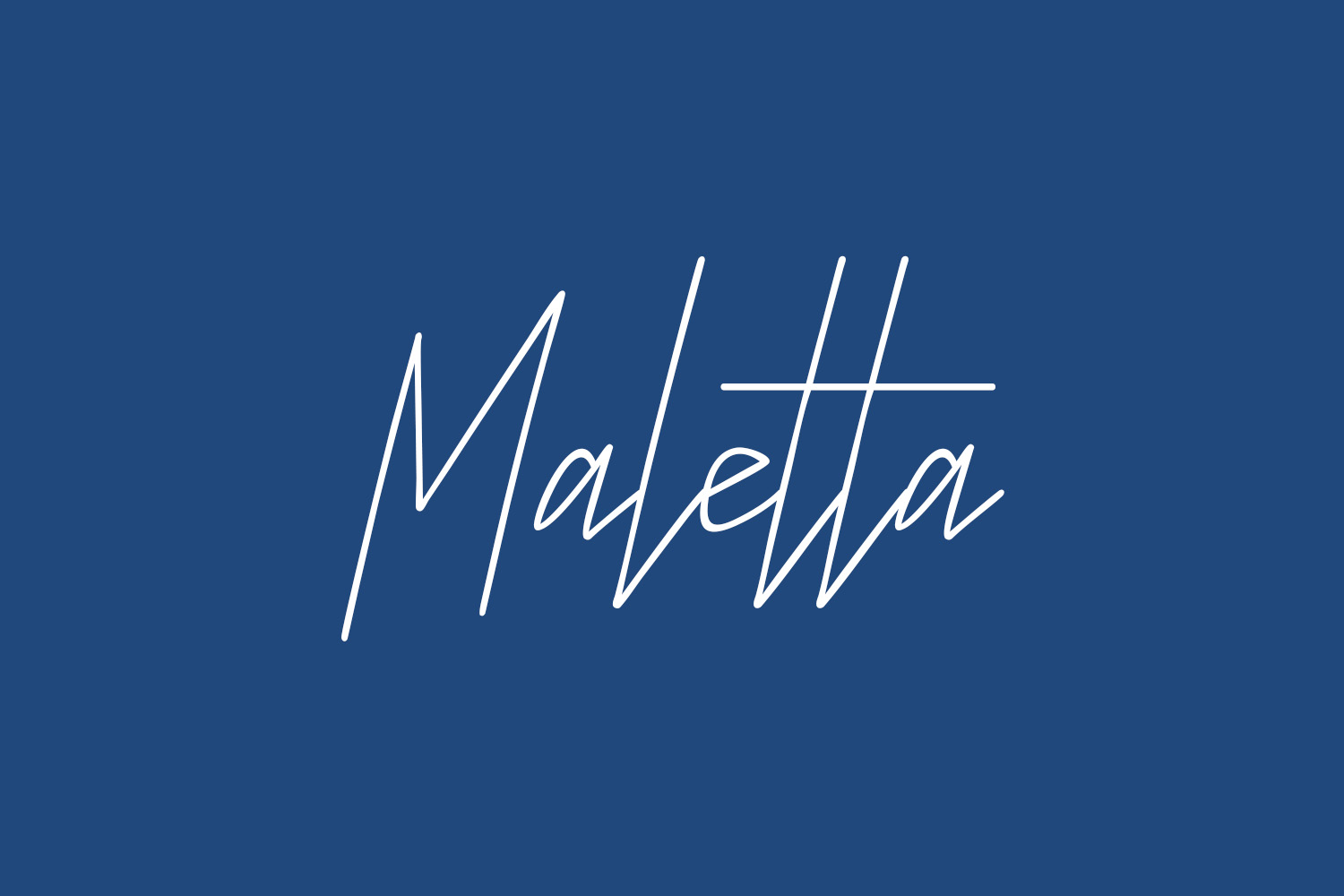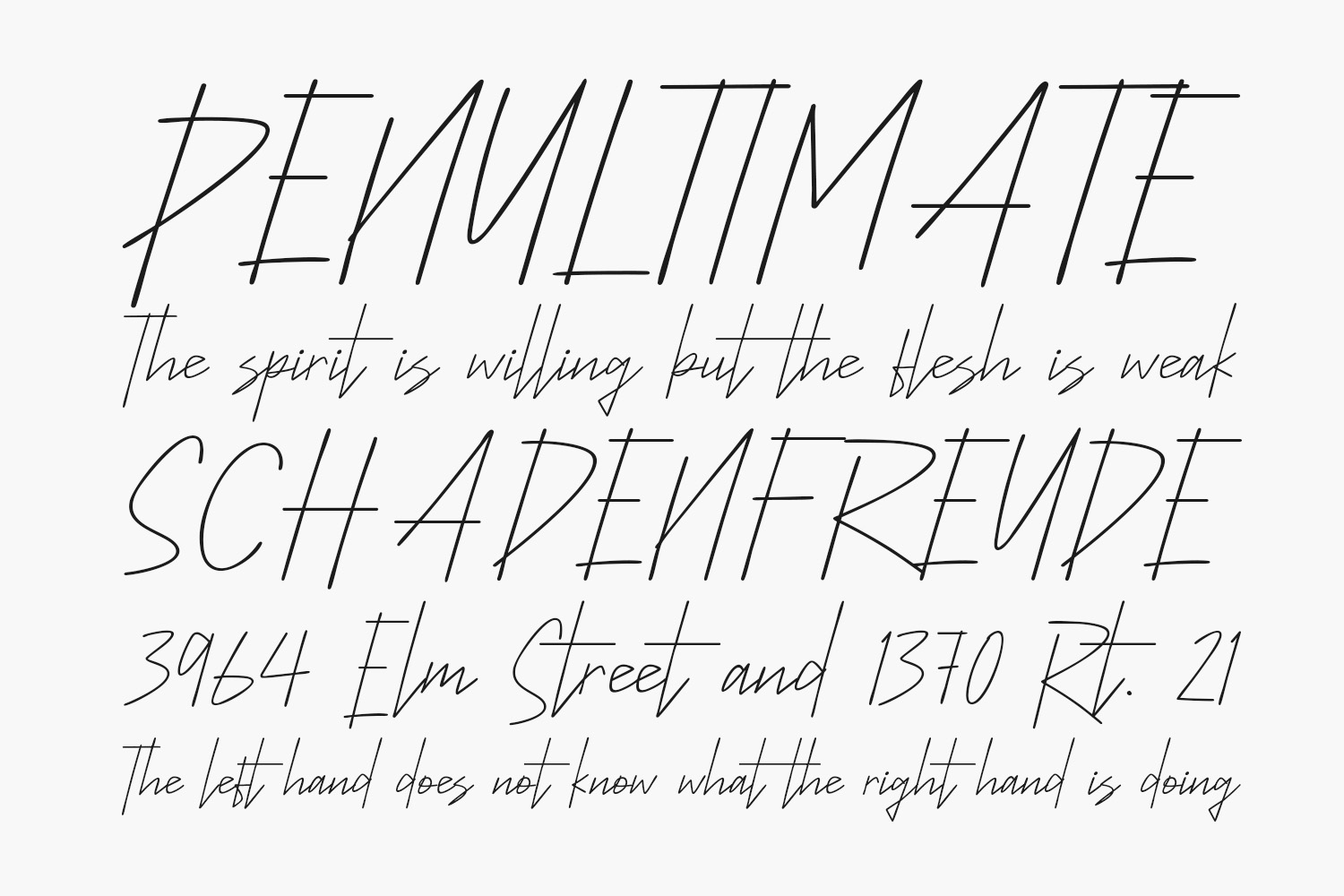
Maletta Free Font, a polished, contemporary script font, combines cleanliness with style and elegance. Ideal for a diverse range of applications, including posters, logos, magazines, book covers, banners, and more! Elevate your designs with this remarkable font – its versatility seamlessly complements a wide array of projects, ensuring they stand out creatively. Maletta Free Font is free for personal use only. Please purchase the full version for commercial use.